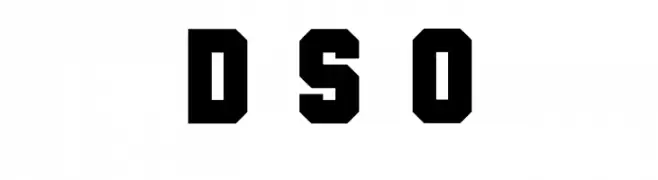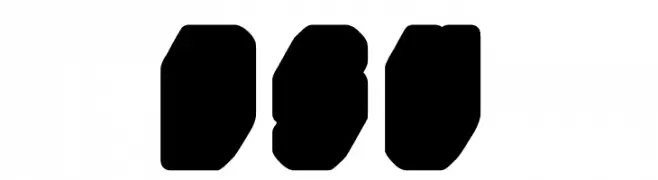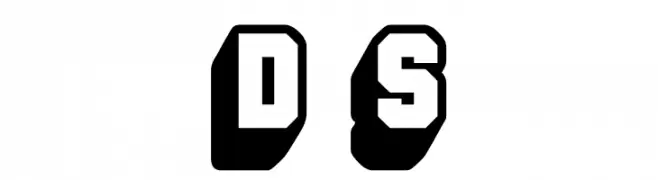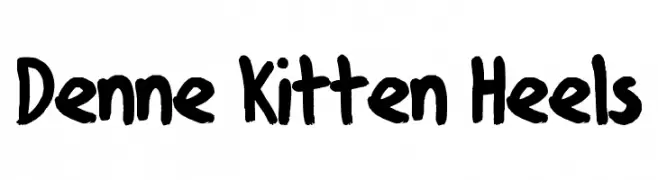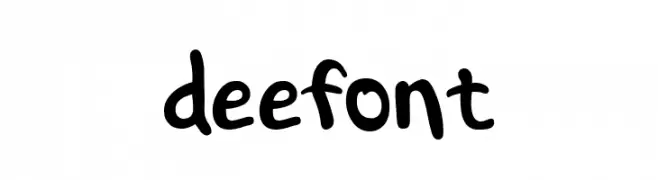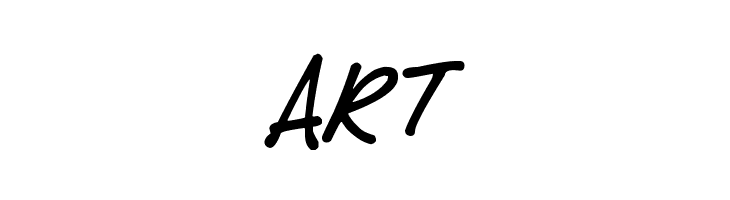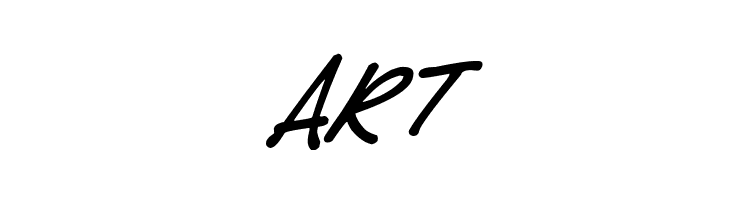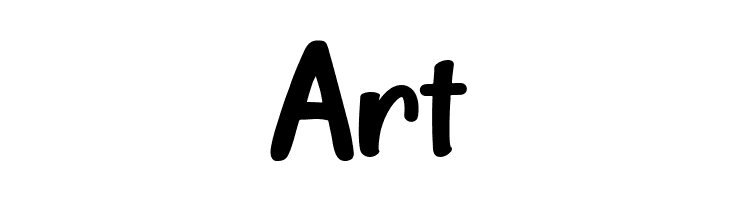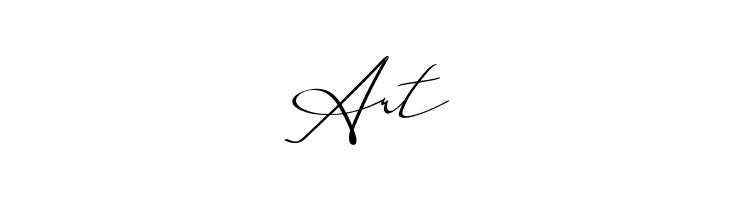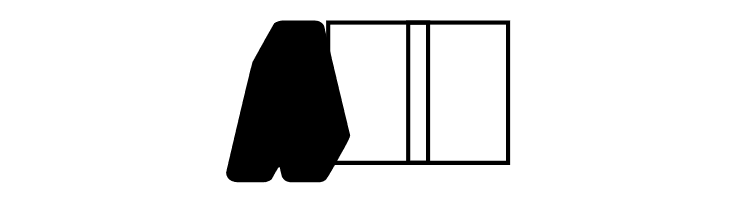
• deefont
( Fonts by Bathara )
A playful, handwritten font with rounded edges and a casual style.
• Deep Shadow
A bold, three-dimensional font with deep shadow effects for standout text.
• Deep Shadow Over
A bold, shadowed font with a modern, geometric style.
• Deep Shadow Under
A bold, shadowed font with a three-dimensional effect, perfect for impactful designs.
• defeqto
( Fonts by www.imbran.net - Bran )
A bold, gothic-inspired font with high contrast and intricate details.
• Deflecting
An elegant script font with fluid, cursive strokes and a refined, artistic feel.
• Delicious Scrawl
( Fonts by Darrell Flood )
A bold, handwritten font with a playful and energetic style.
• Delicious Scrawl Italic
( Fonts by Darrell Flood )
A bold, cursive script font with a lively, handwritten style.
• Delight Candles
( Fonts by Fikryal studio )
A playful, bold font with rounded, thick strokes and a whimsical touch.
• Denne Kitten Heels
A bold, playful handwritten font with thick strokes and a casual feel.